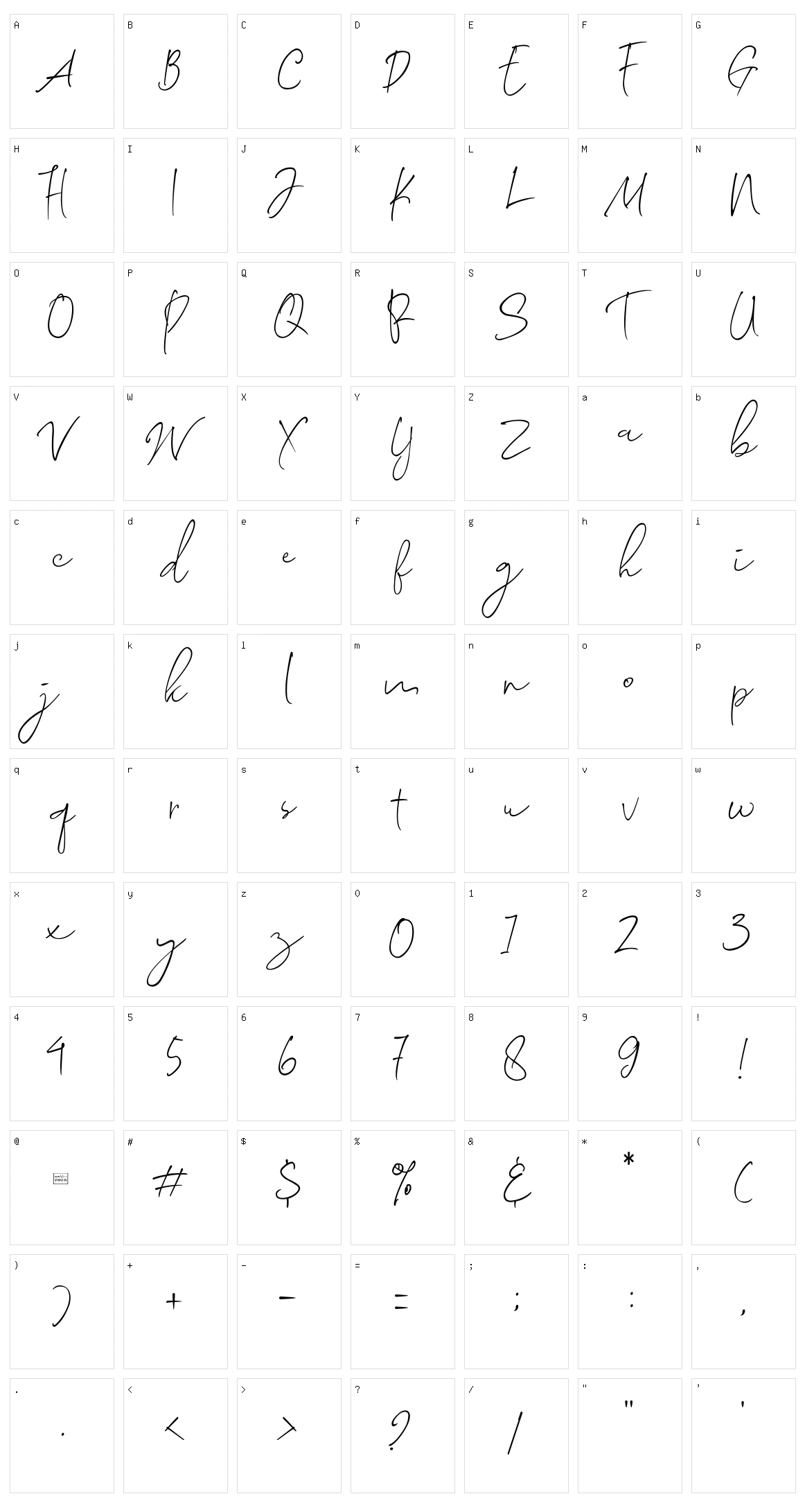
The free font Morosyot is carefully designed by Hindra Permana, showcasing a thoughtful balance of creativity and usability and falls under the Script font style. When you download the ZIP file, it contains only 25.42 KB of font files, making it lightweight and quick to download. Please review the license details below to understand permitted usage and distribution rights. If license information is not available, we recommend using this font for personal projects only or contacting the author directly for commercial usage permissions.